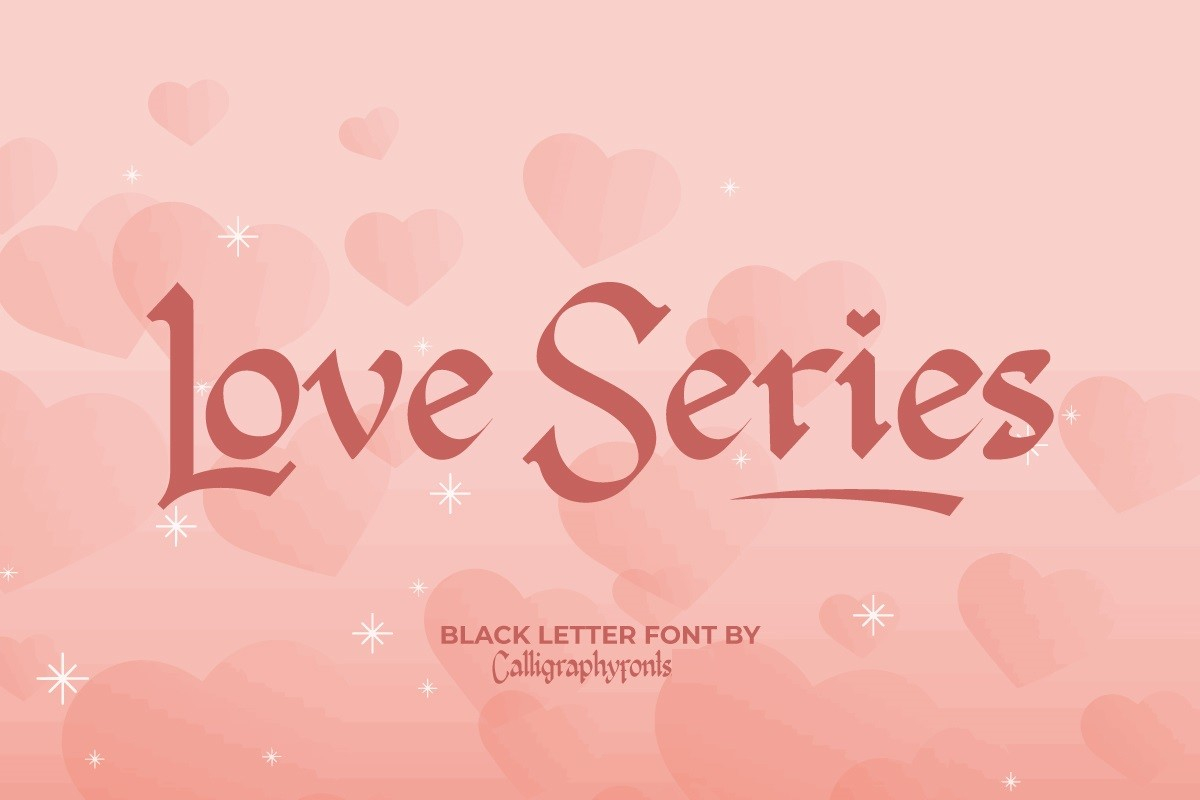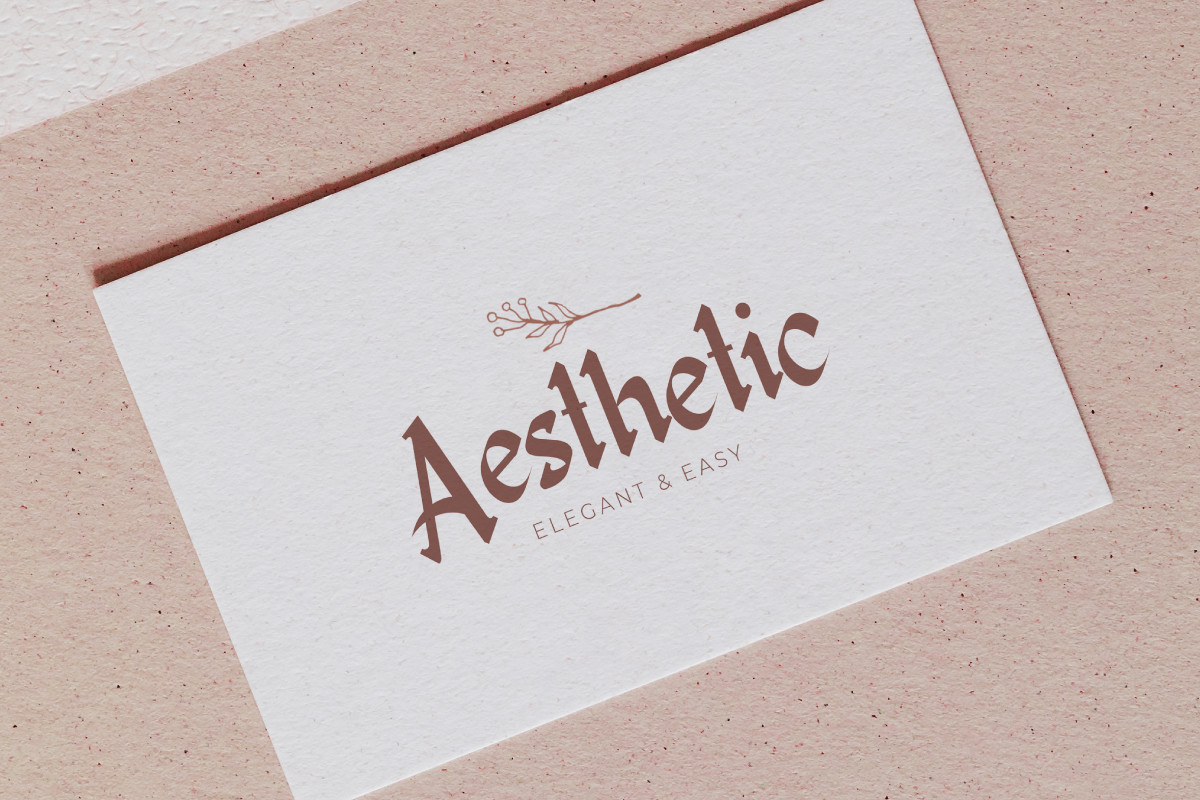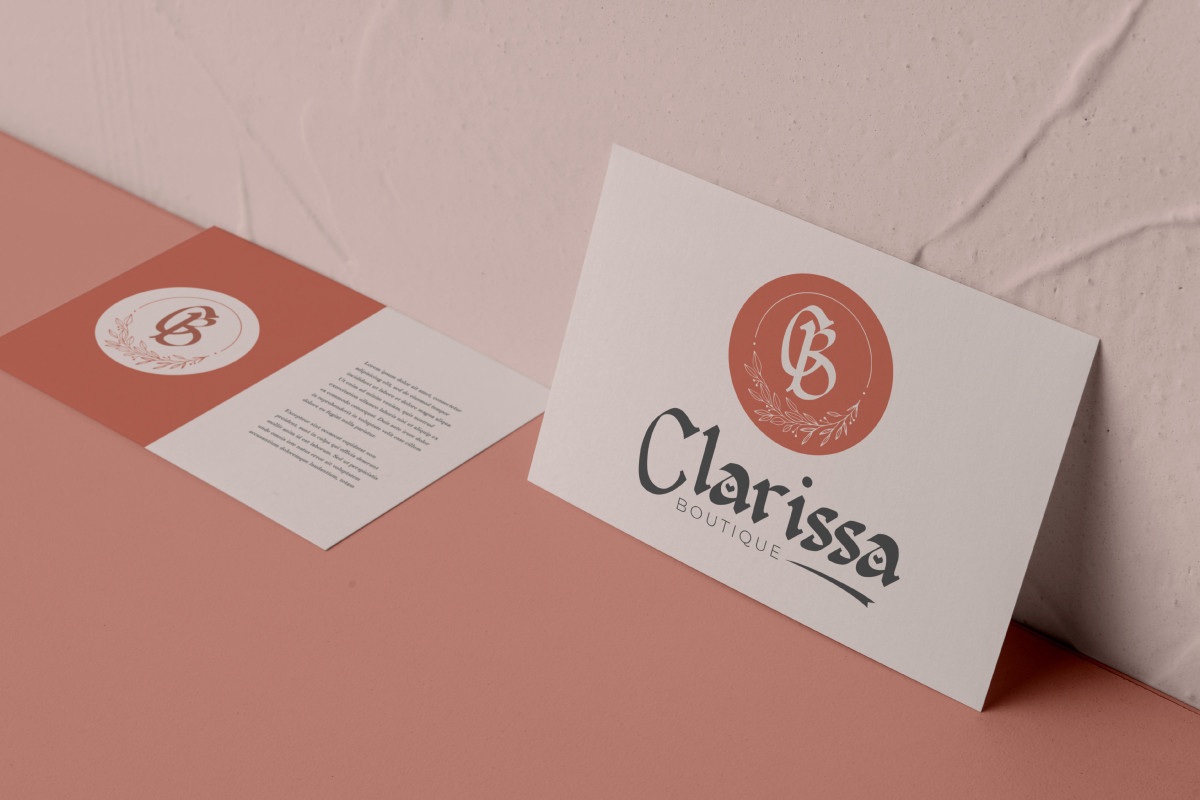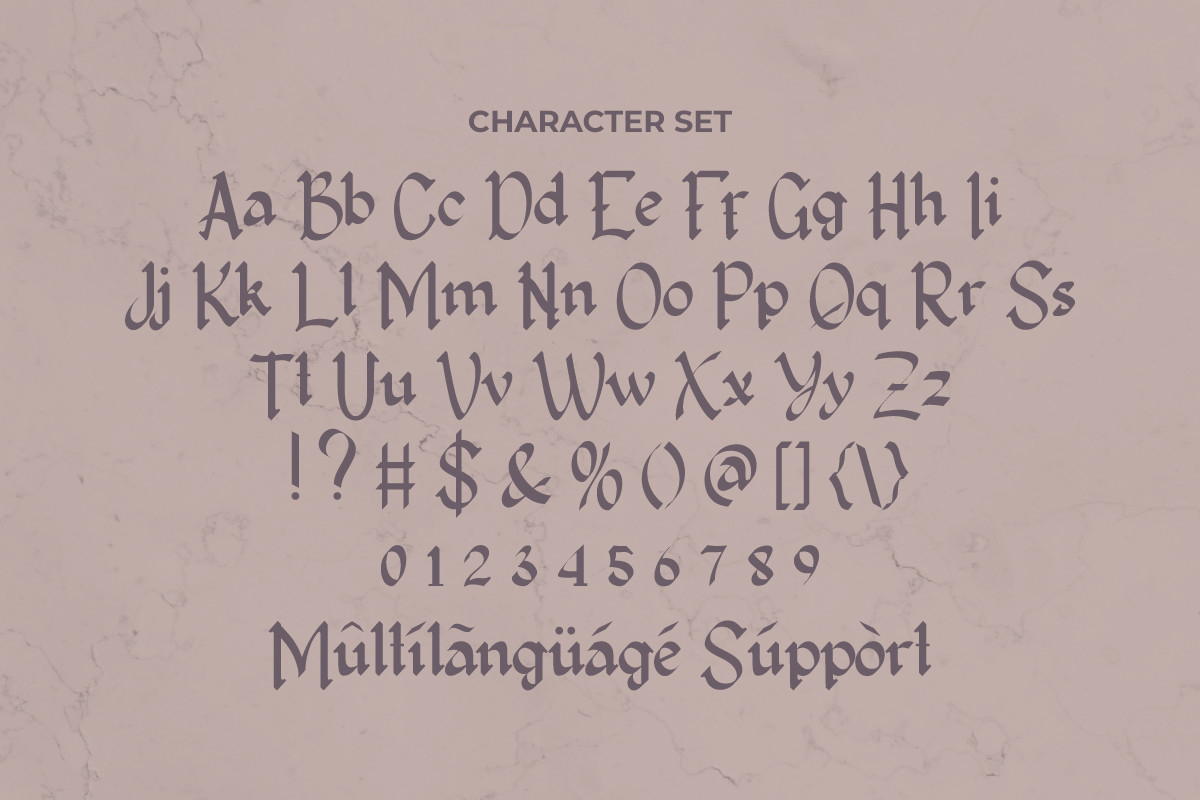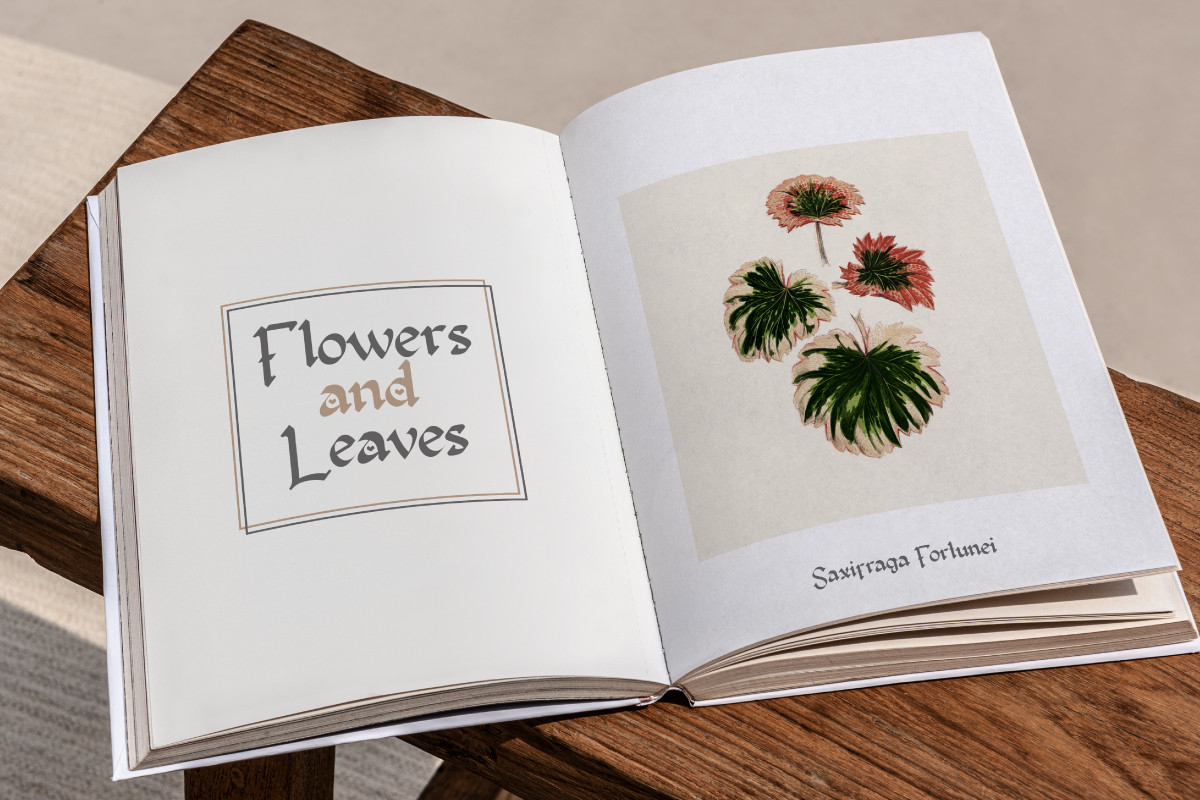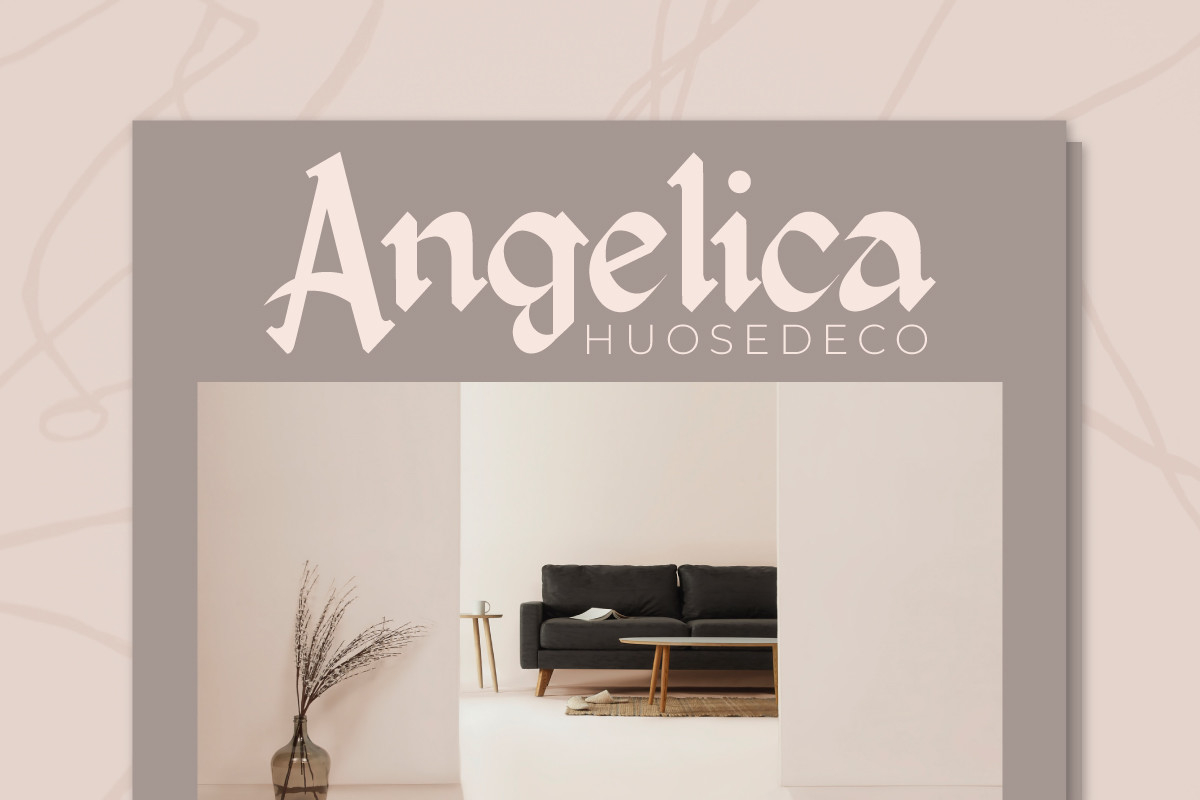
Love Series Font
Love Series is a chic blackletter font with a unique and simple style. This font is PUA encoded which means you can access all glyphs and swashes with ease!
Neatly crafted, Love Series will have a remarkable touch to your creations.